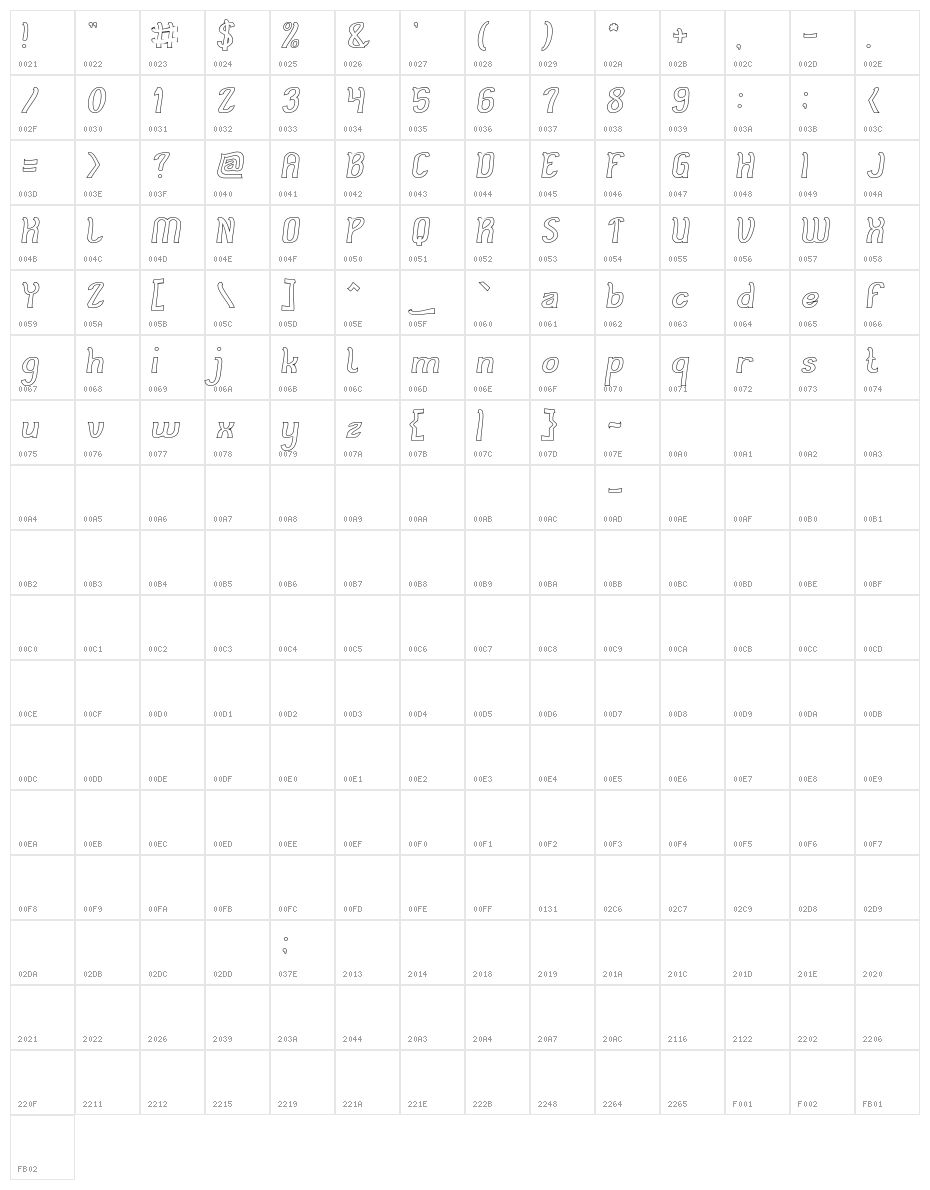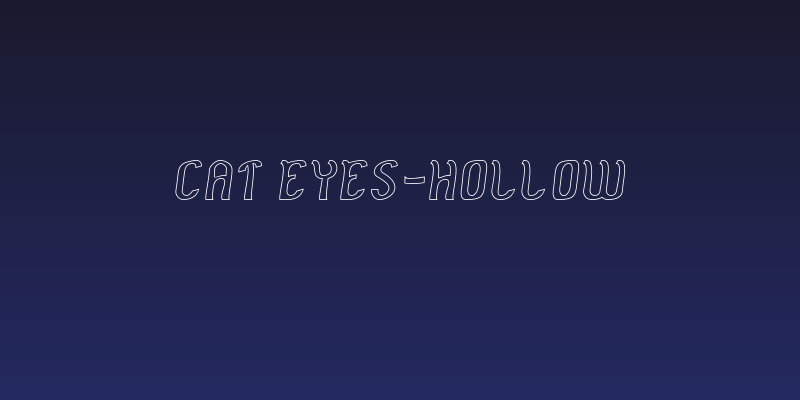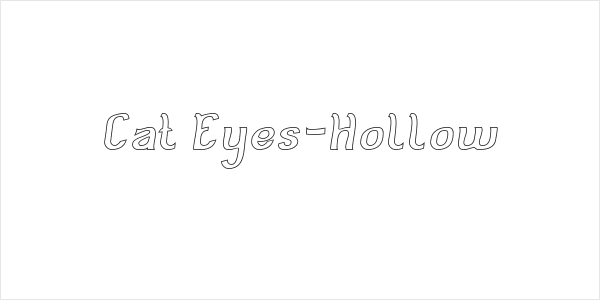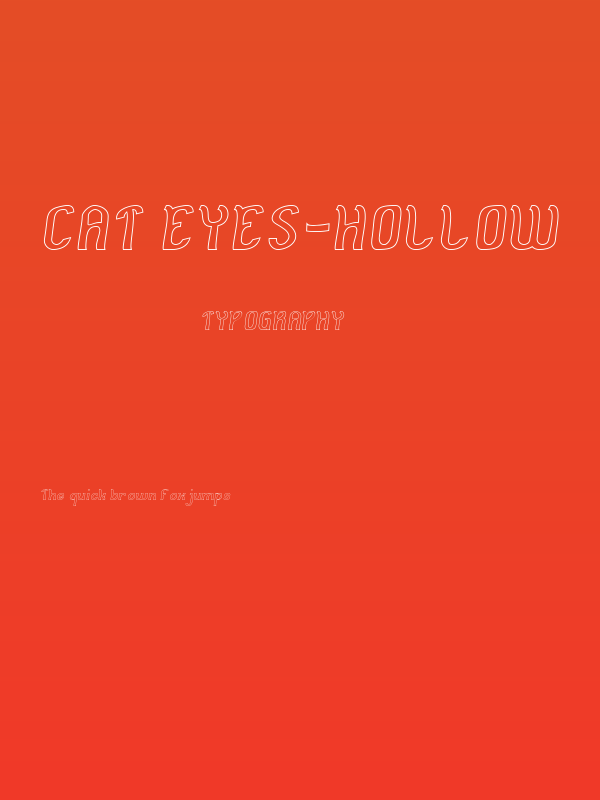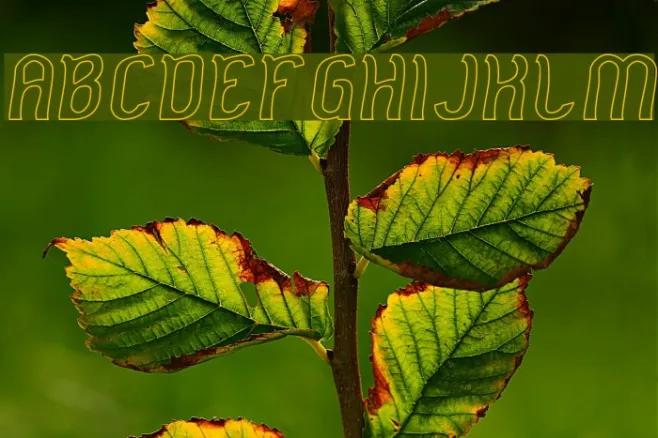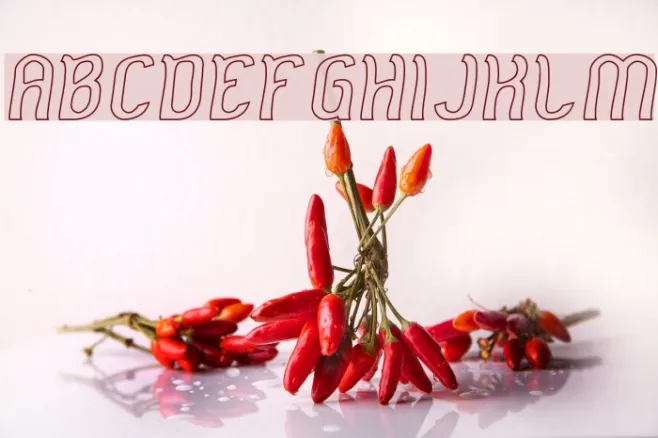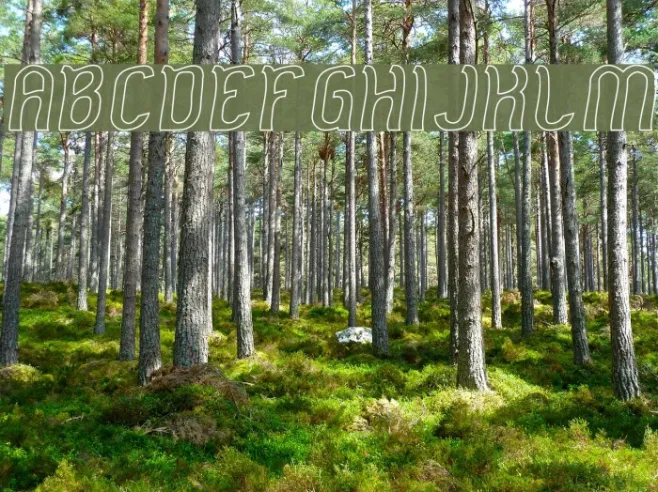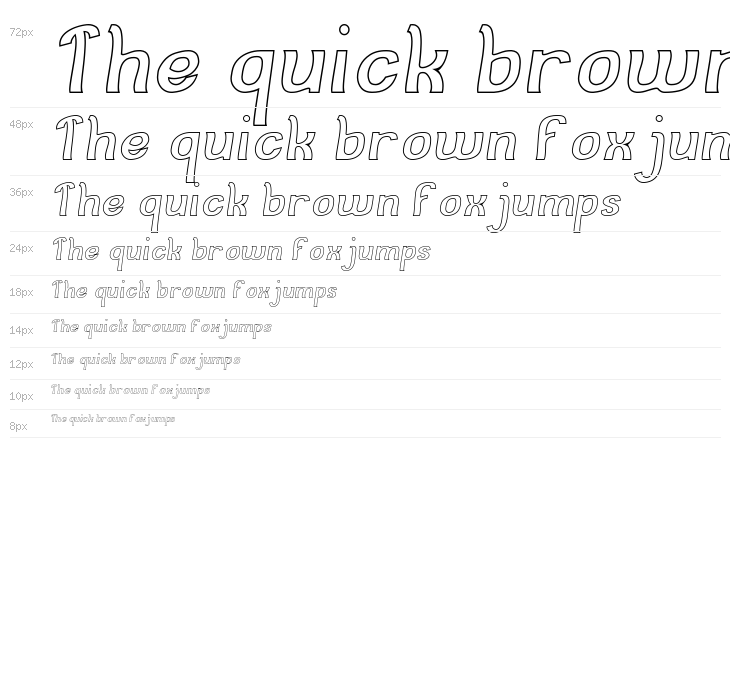
Cat Eyes-Hollow Font
Cat Eyes-Hollow Description
This font features a playful and whimsical design with hollow, outlined characters that give it a unique and eye-catching appearance. The letters have a hand-drawn quality, with slight variations in stroke width that add to its charm. The uppercase and lowercase letters maintain a consistent style, with rounded edges and a smooth flow. Numbers and special characters are also included, matching the overall aesthetic. This font is perfect for projects that require a fun and informal touch, such as children's books, greeting cards, or playful branding.
| Overall Style | Whimsical |
| Proposed Projects | Ideal for children's books, greeting cards, playful branding, and informal designs. |